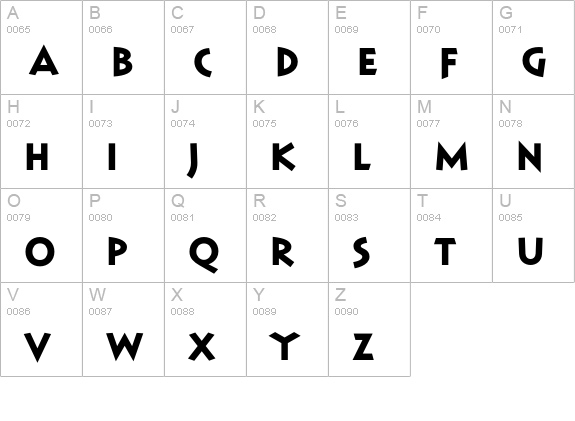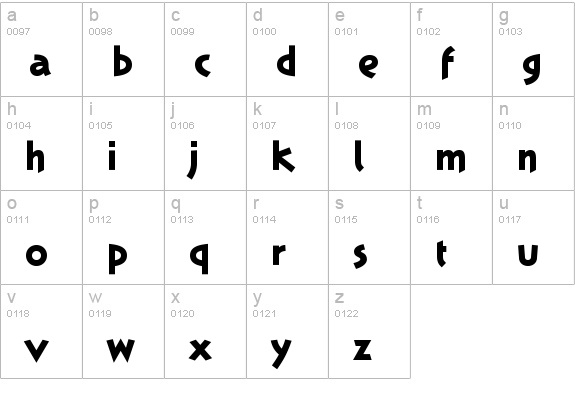
KaffeesatzEF-Schwarz Font Details
KaffeesatzEF-Schwarz font is a striking and sophisticated typeface that exudes elegance and charm. Its bold and sharp lines make it perfect for adding a touch of modernity to any design project. The font's sleek and timeless design is reminiscent of traditional serif fonts, but with a contemporary twist that sets it apart. One of the standout features of KaffeesatzEF-Schwarz font is its versatility. It can be used in a variety of settings, from branding and logo design to editorial layouts and web design. Its clean and legible letterforms ensure that your message is effortlessly communicated to your audience. What sets KaffeesatzEF-Schwarz font apart is not only its stunning design but also its availability. It is freely available to download at FontsMarket.com. This means that designers and creatives can easily access this remarkable font without any cost. Whether you are a professional designer or a hobbyist, KaffeesatzEF-Schwarz font is the perfect addition to your font library. With its bold and captivating presence, KaffeesatzEF-Schwarz font is sure to make a lasting impression on any design project. Its balanced proportions and attention to detail make it suitable for both headers and body text. Its versatility and freely available nature make it a must-have font for anyone looking to elevate their designs. So why wait? Download KaffeesatzEF-Schwarz font today and let your creativity soar.